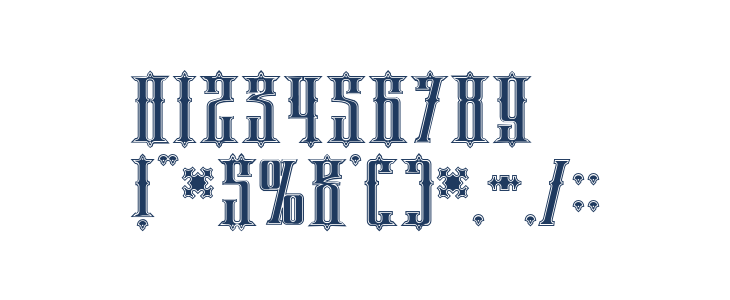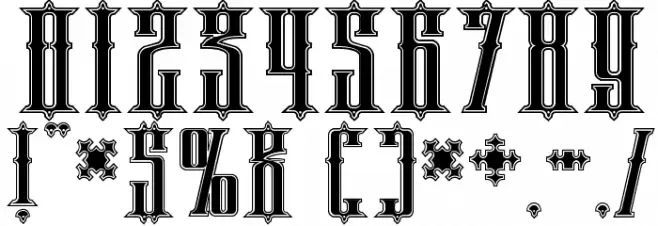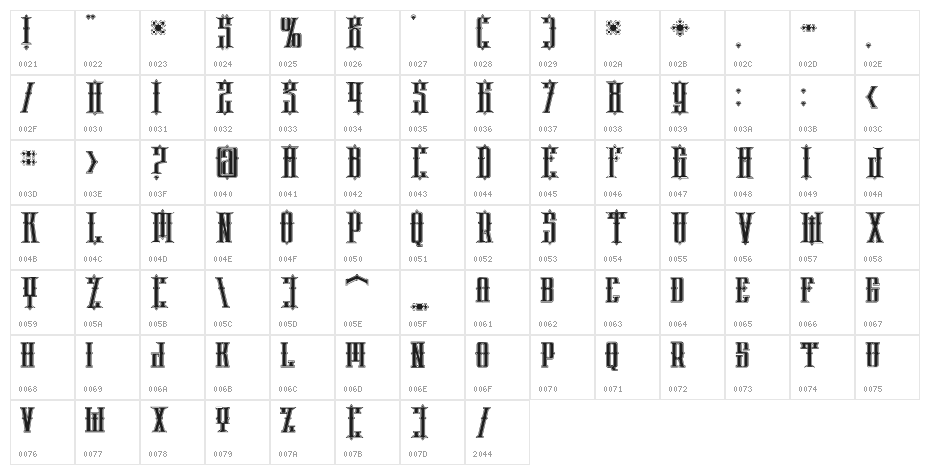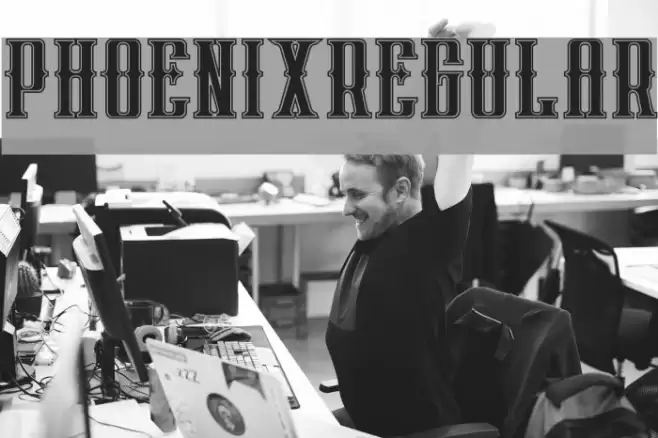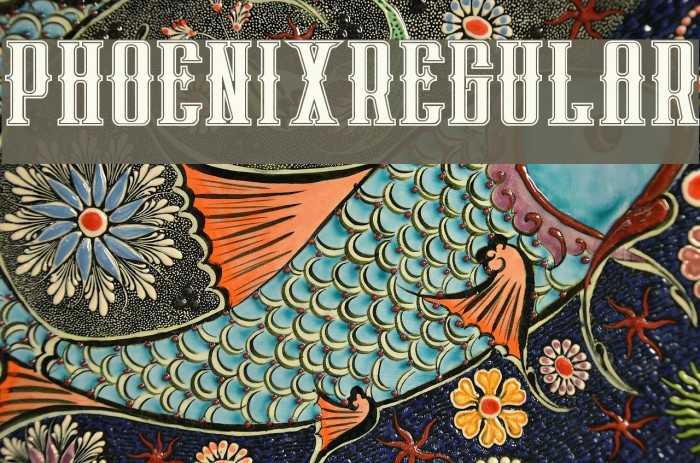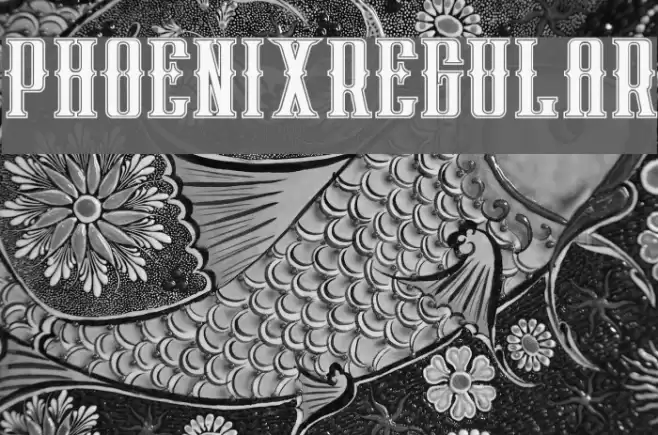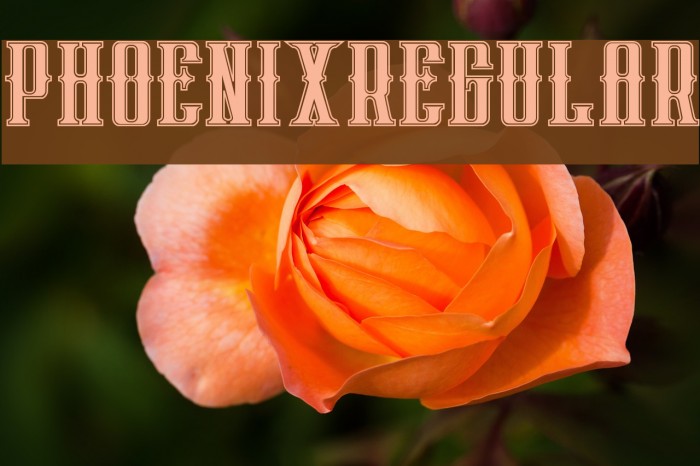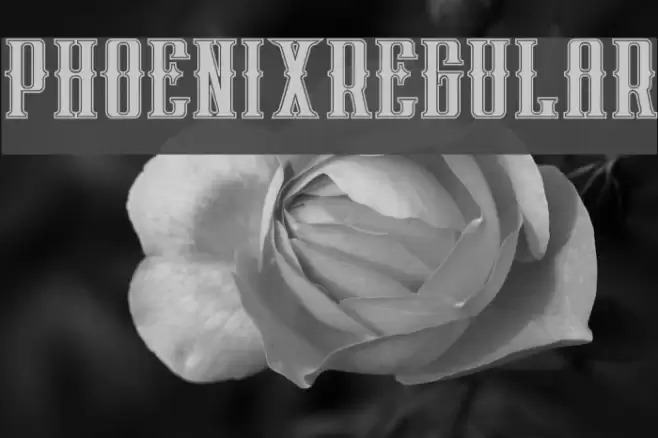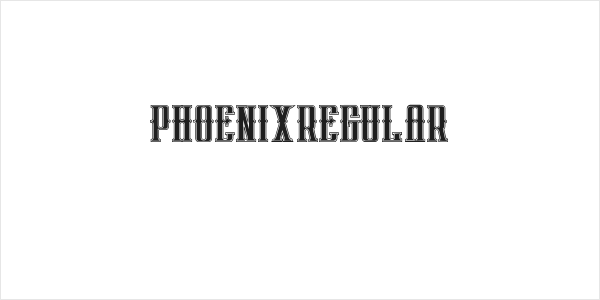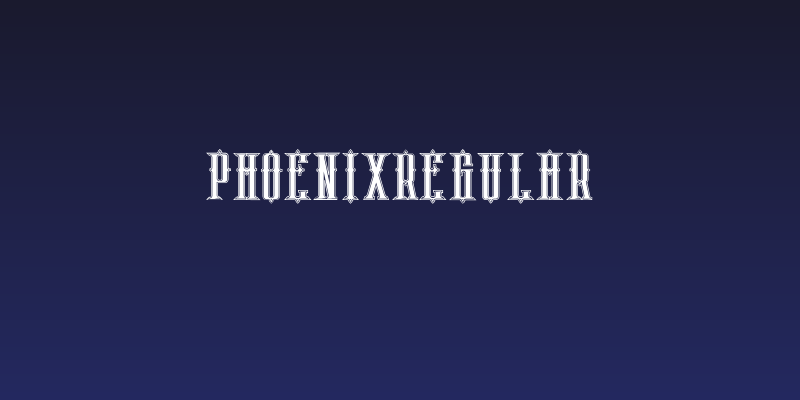
phoenixregular Font
phoenixregular Description
This font features a bold, decorative style with intricate detailing and a strong presence. The characters are outlined with a double line, creating a shadow effect that adds depth and dimension. The serifs are pronounced and stylized, contributing to its ornate appearance. The overall design is reminiscent of vintage or Western typography, with a modern twist. The uppercase and lowercase letters maintain a consistent style, while the numbers and special characters complement the overall aesthetic. This font is ideal for projects that require a dramatic and eye-catching typeface.
| Overall Style | Vintage, Decorative |
| Proposed Projects | Ideal for posters, logos, branding, and any project needing a dramatic, vintage look. |